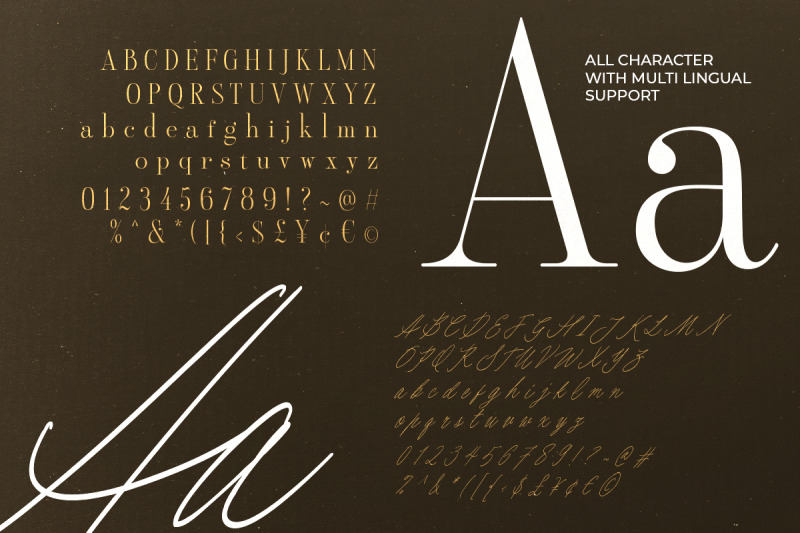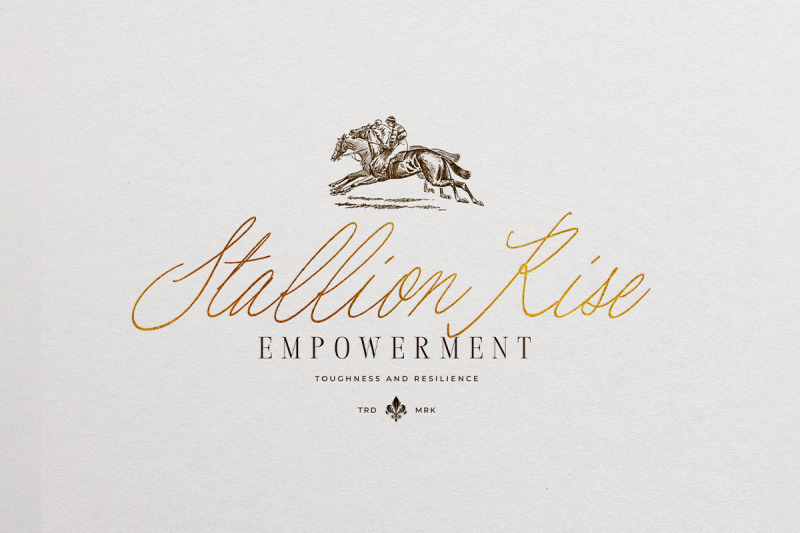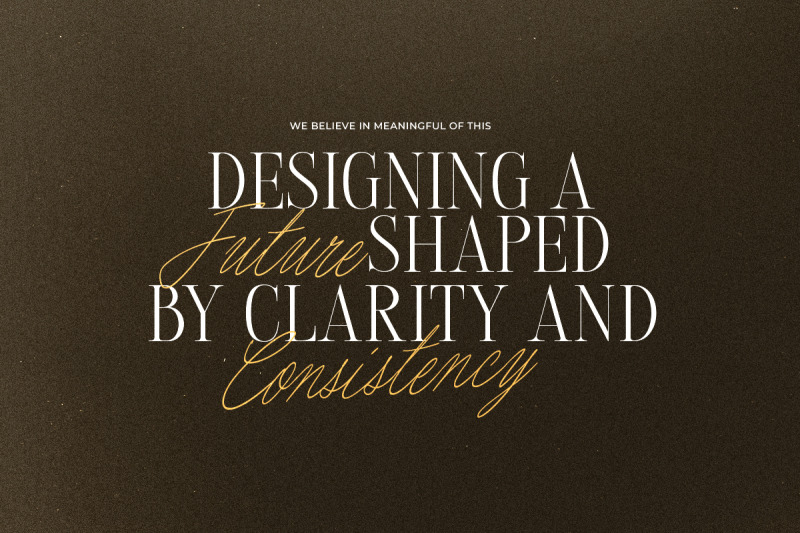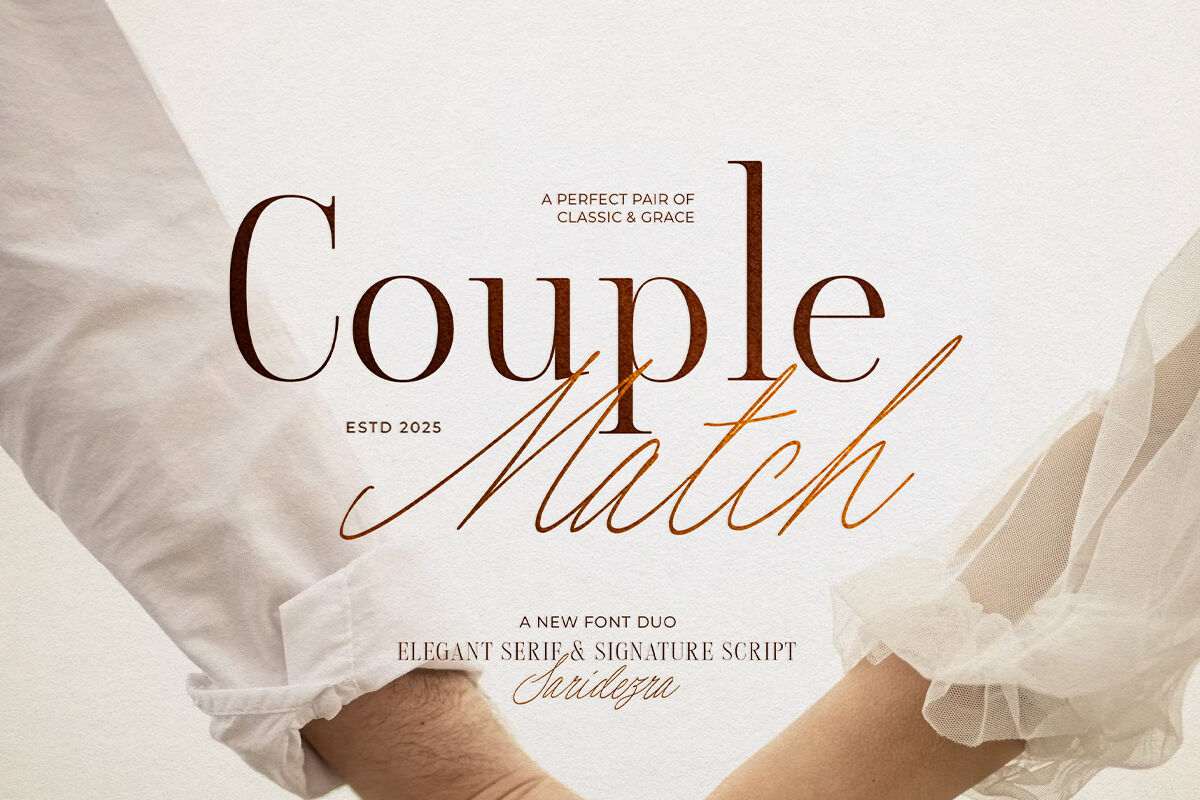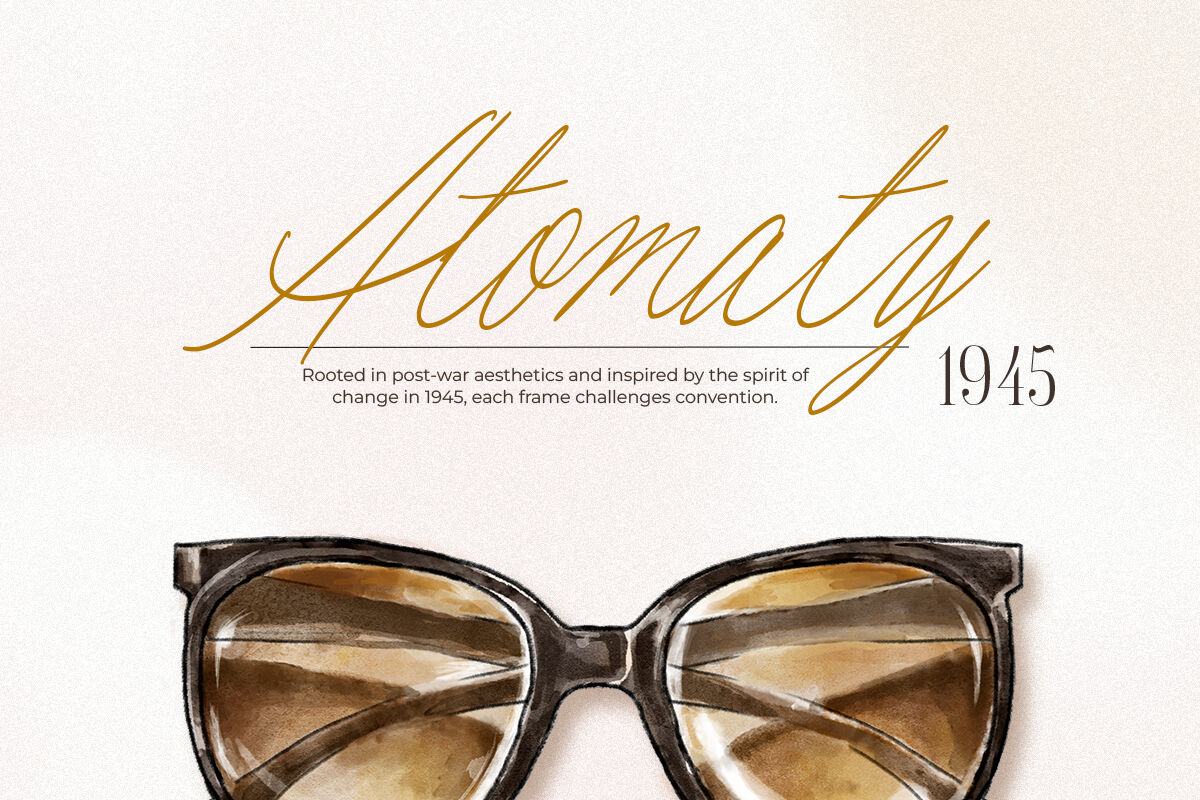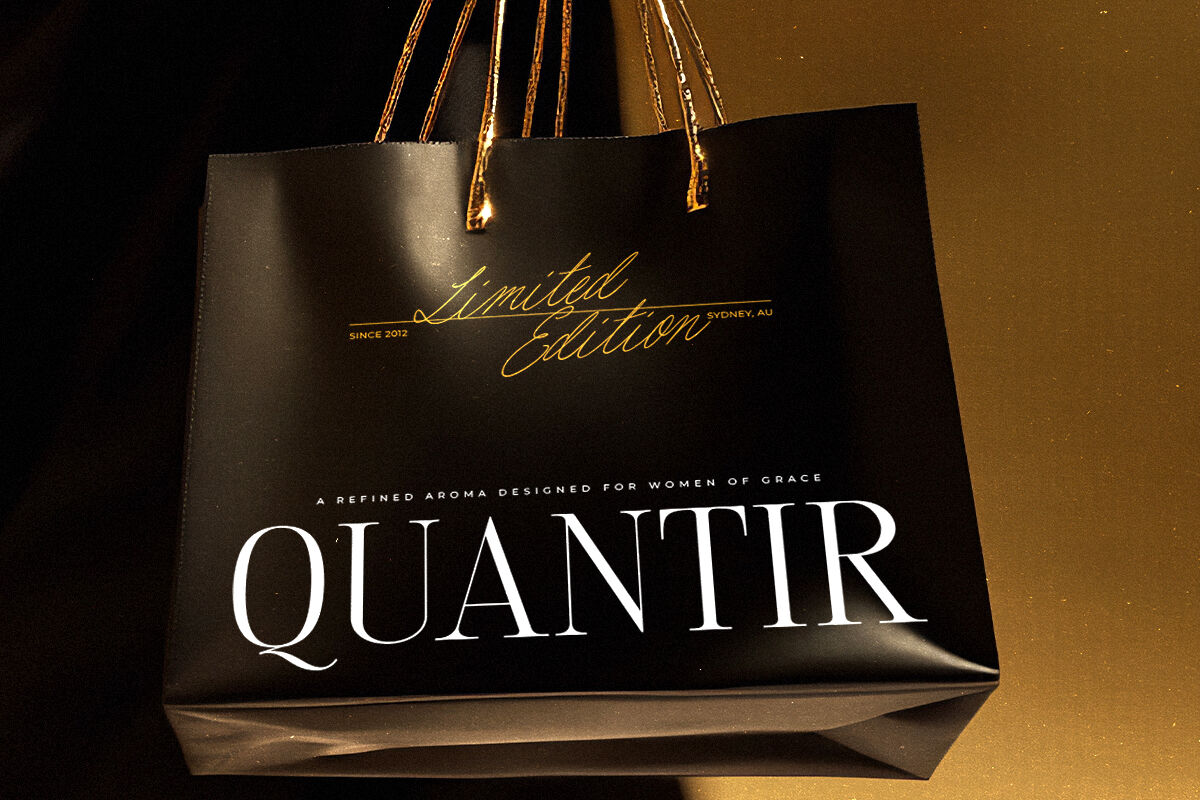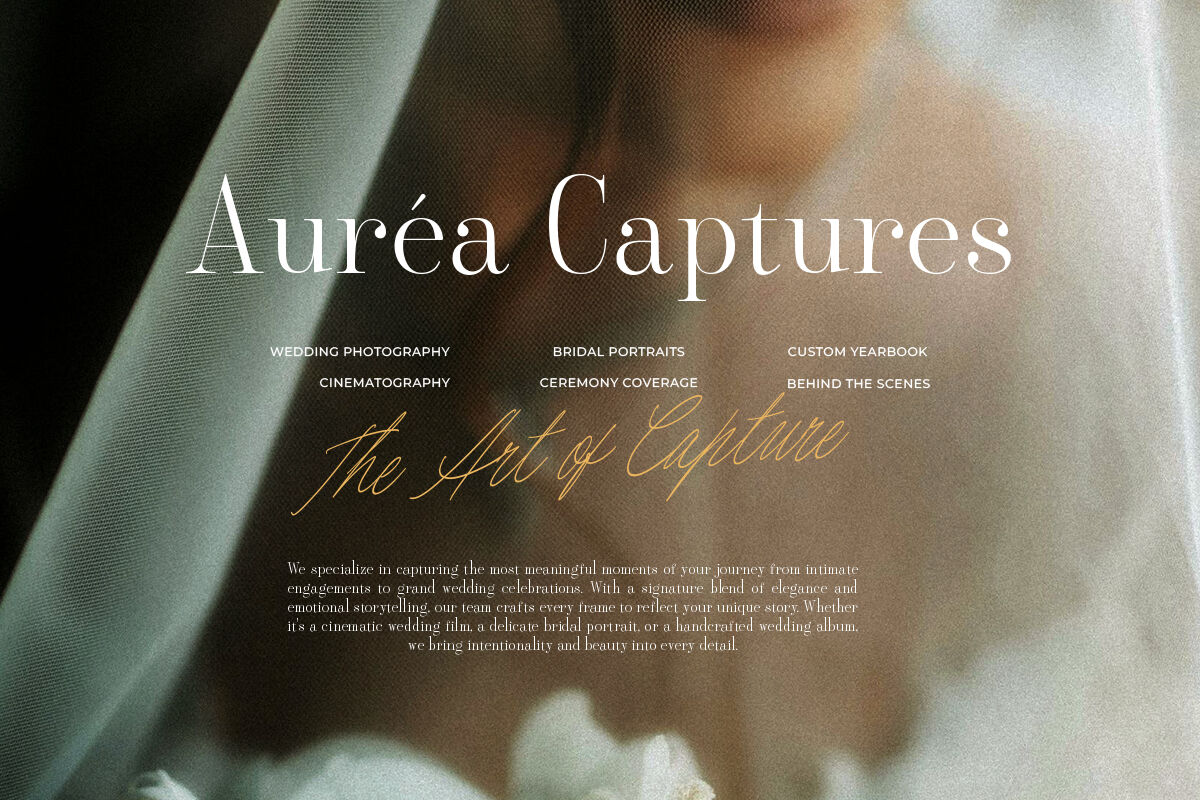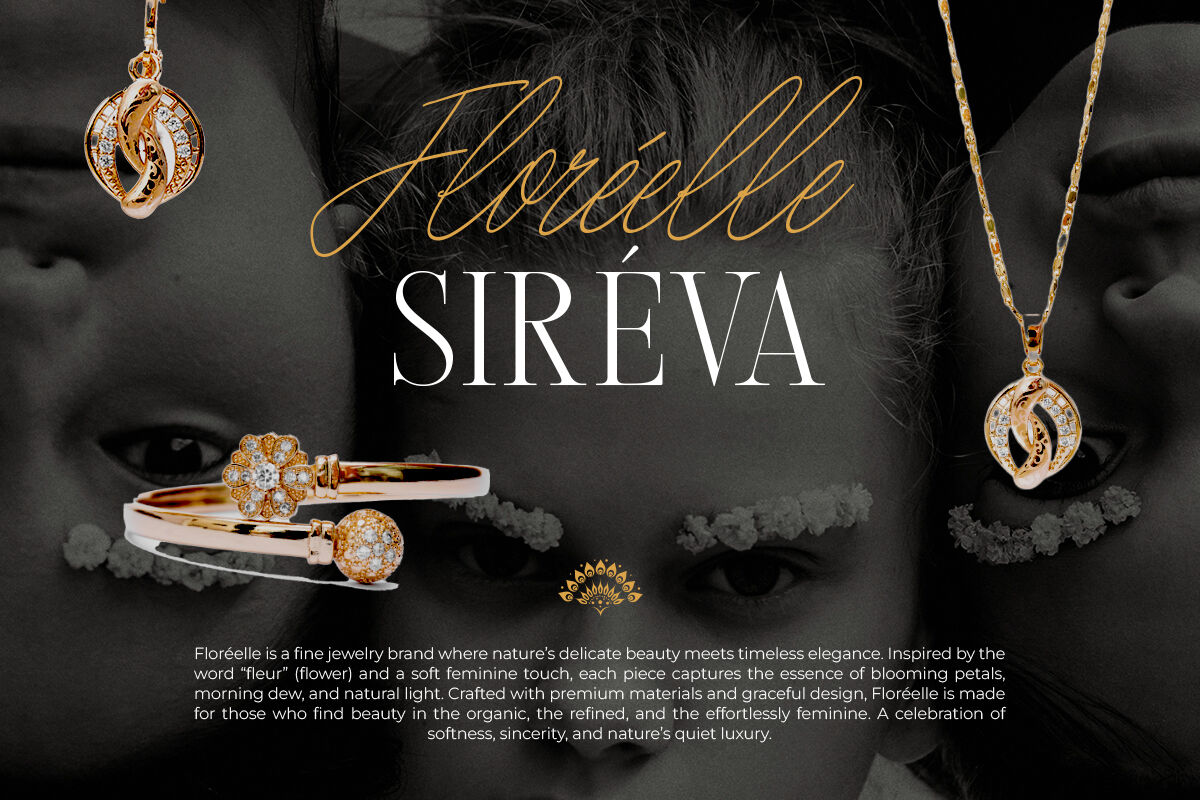
Couple Match - Luxury Font Duo
Couple Match is a luxury combination between elegant serif with handwritten script. Contain two fonts, the modern yet classy tall serif and signature handmade script. You can use this font for any purposes, suitable for any project that needs luxury and modern looks. Couple Match also great for invitation wedding and branding. This font duo also support multilingual, number and symbol.
Couple Match Script
Couple Match Serif